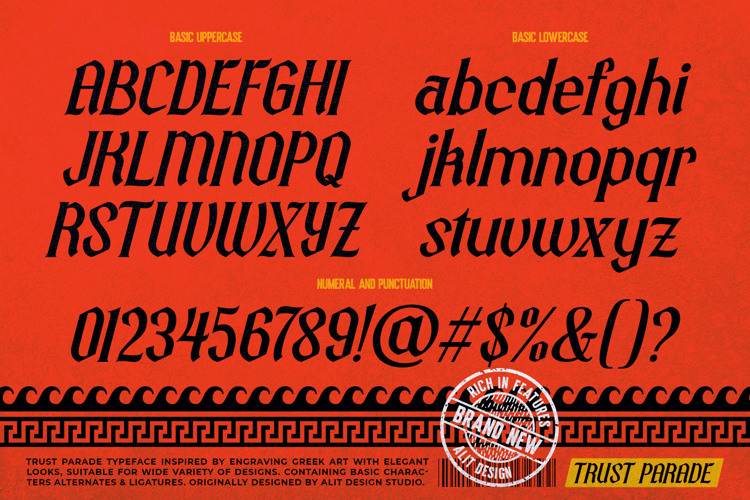
Trust Parade Font
Unleash the Chaos of Ancient Myths with Trust Parade – A Greek Engraving Inspired Display Font.
Step into the realm of legends with Trust Parade, a typeface that masterfully blends the sharp aggression of blackletter calligraphy with the timeless elegance of ancient Greek and Roman engravings.
Inspired by the intricate details of classical pottery, marble inscriptions, and the chaotic beauty of mythology, Trust Parade is not just a font—it is a piece of history reimagined for the modern rebel. Each character is chiseled with precision, featuring sharp serifs and diamond-shaped accents that evoke the strength of a gladiator and the grace of a deity.